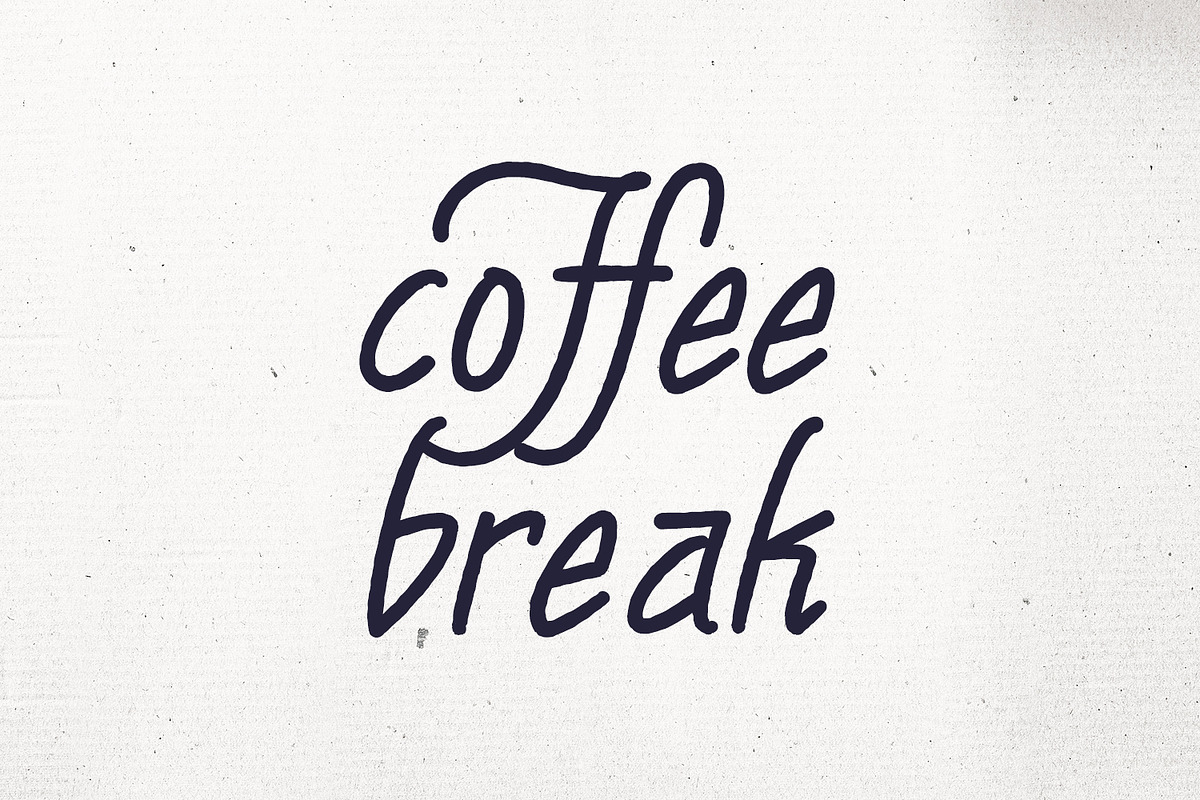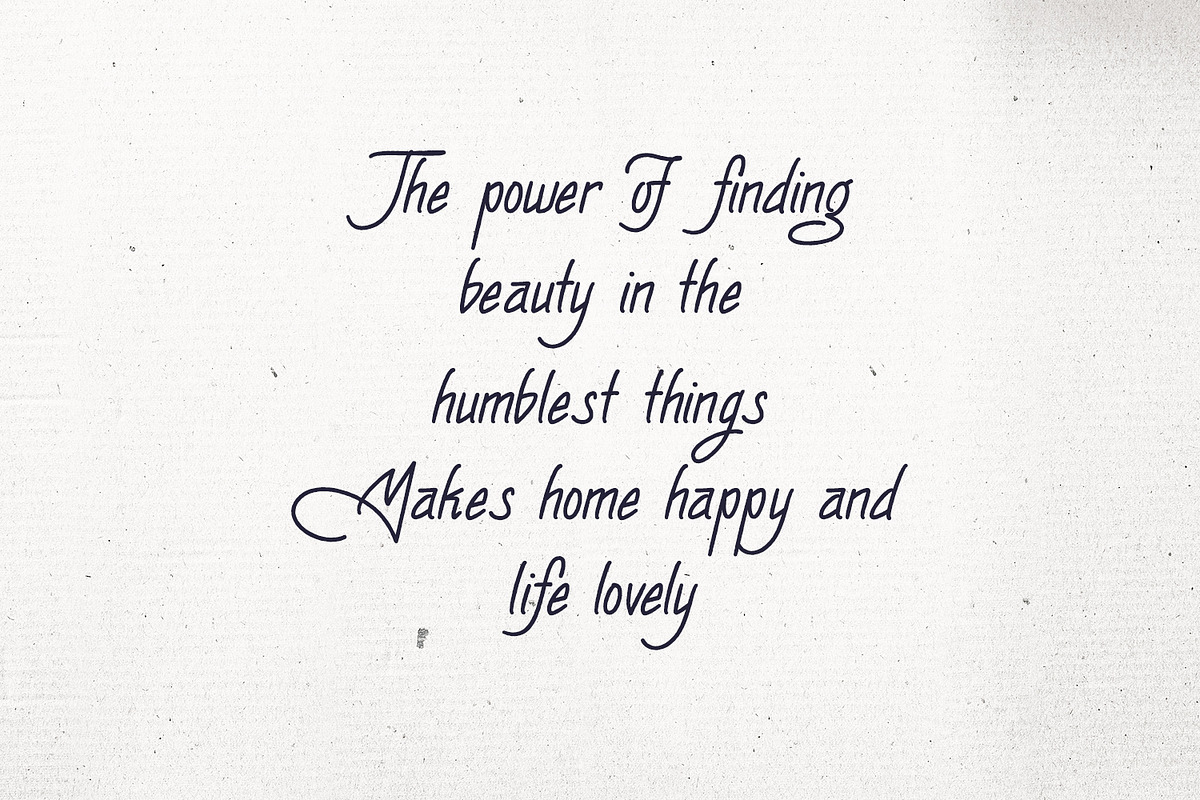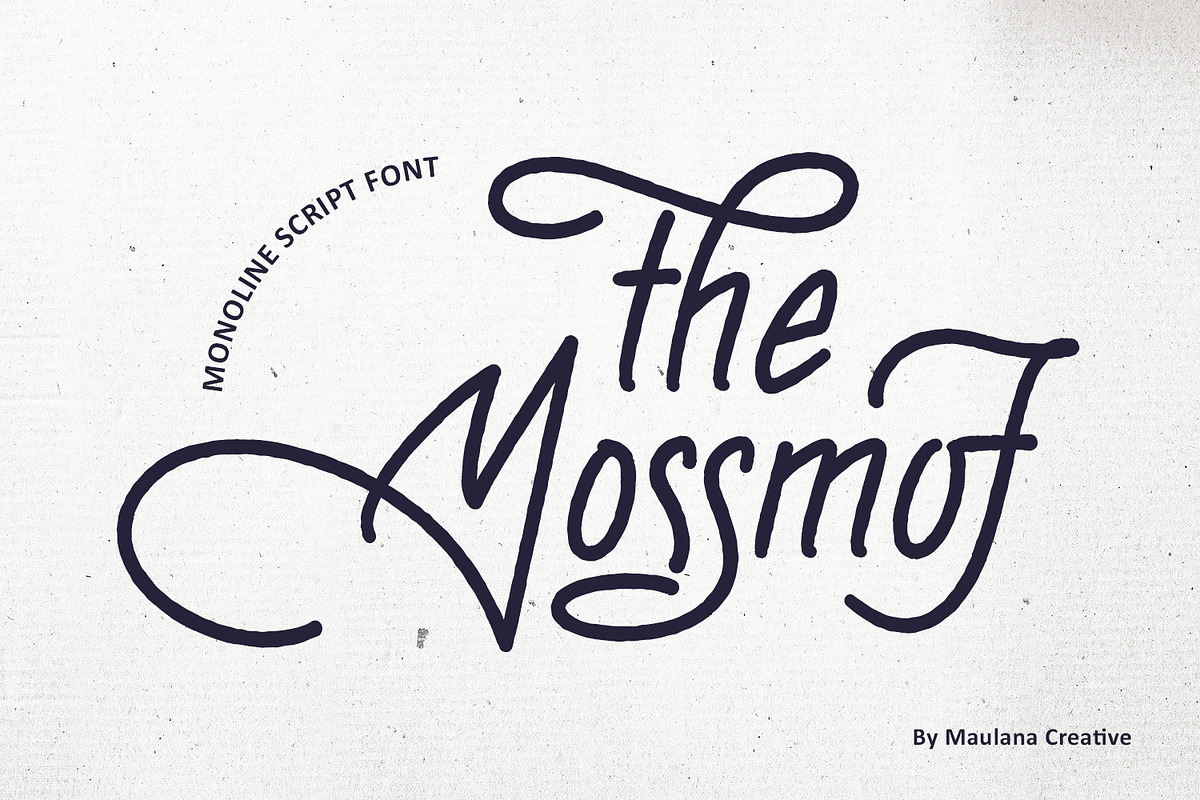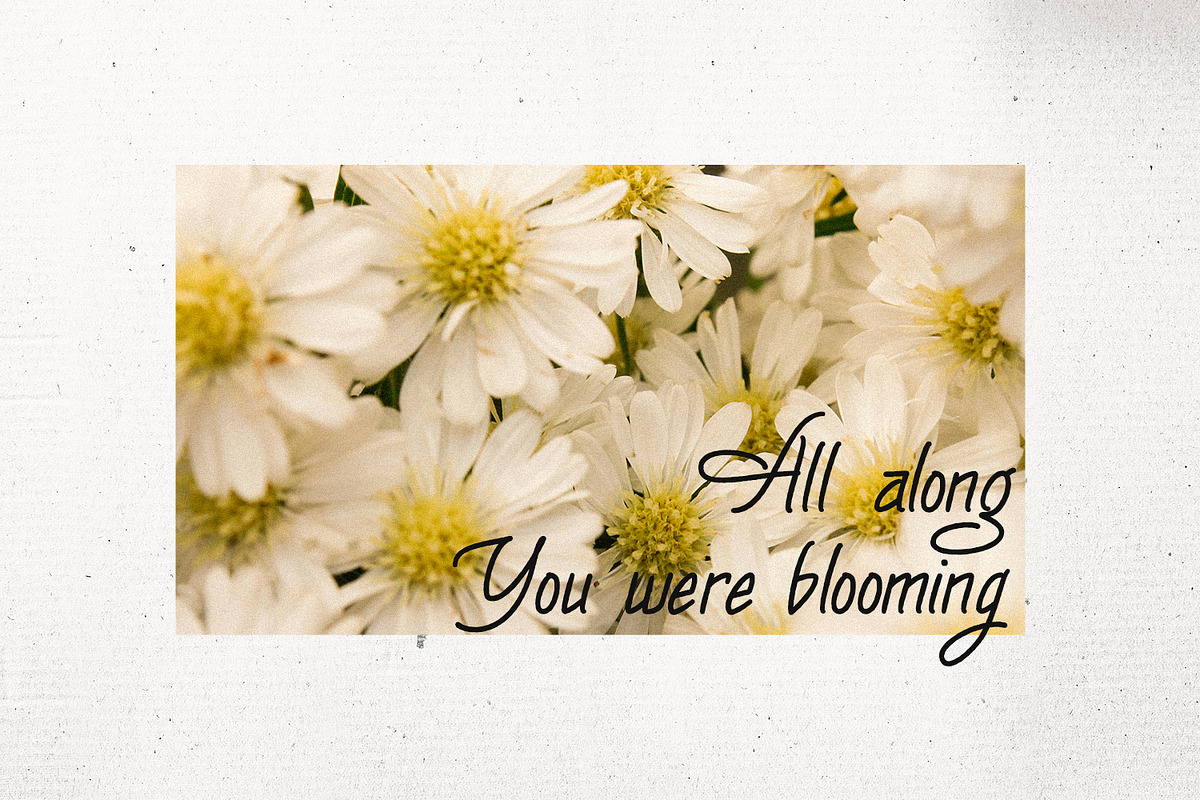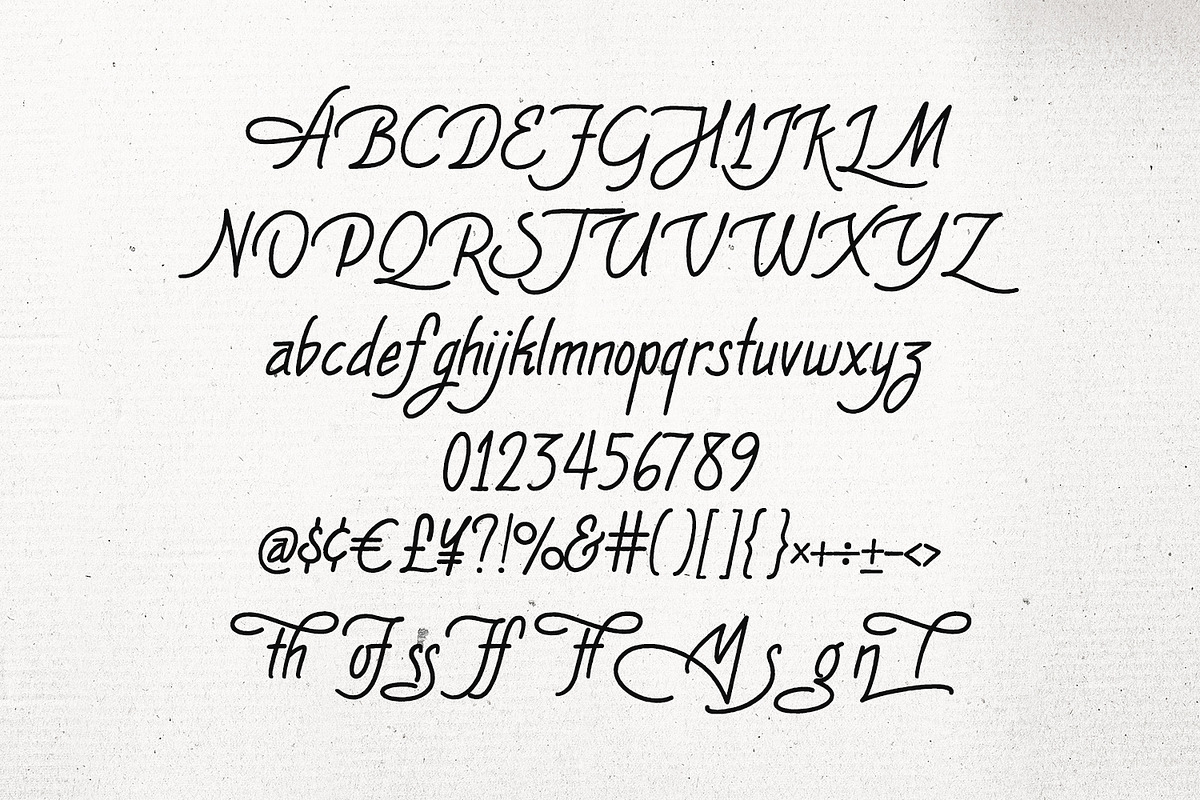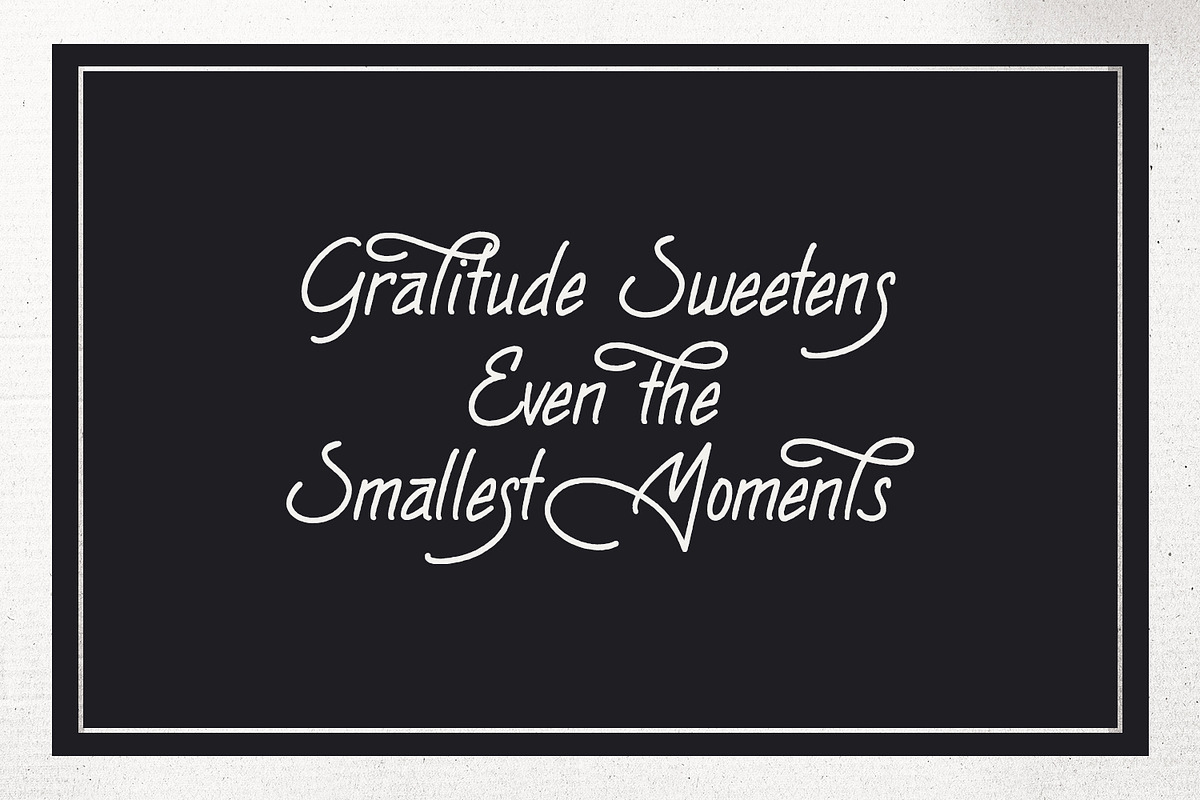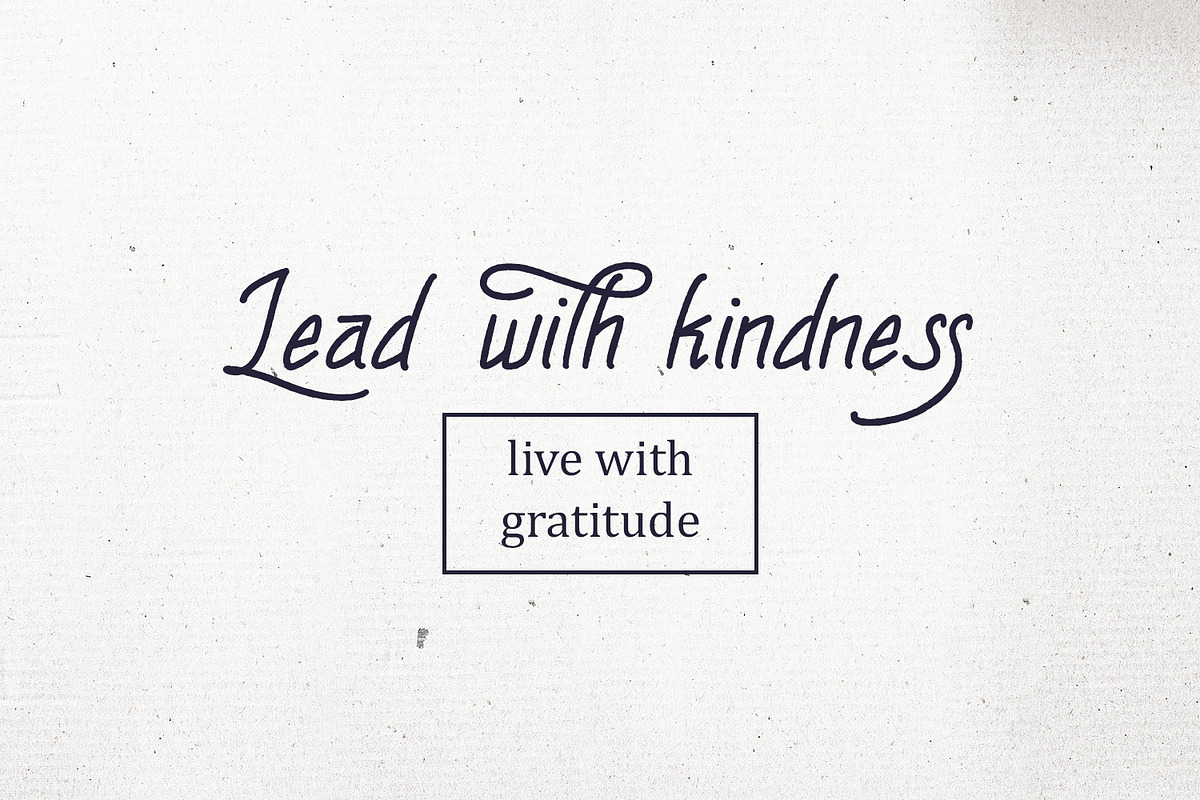
The Mossmof Monoline Script Font
The Mossmof is a beautifully flowing and charming Monoline Script Font that brings an authentic, handcrafted feel to any design. Created by Maulana Creative, this font strikes the perfect balance between classic elegance and contemporary style with its consistent, clean line weight and gracefully connected characters. The smooth, continuous script mimics natural handwriting, perfect for adding a sophisticated touch.
Excellent for a wide range of projects, including branding, wedding invitations, inspirational quotes, social media, product, and stylish logotypes. Includes uppercase and lowercase letters, numbers, punctuation, and a variety of special characters and ligatures to ensure flexibility and creative freedom in your designs. Despite its artistic flourishes, the monoline design maintains excellent legibility, making your message clear and impactful. The font is ideal for themes related to kindness, gratitude, happiness, and nature, as demonstrated in the inspiring quote previews.